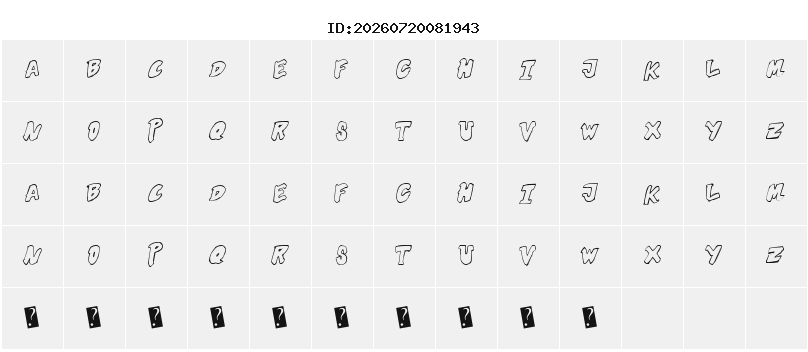
• Font Name: FuturisticOutline
• Designer: Max Infeld
• Manufacturer: Xerographer Fonts
• Description: This font at in Chico,CA Xerographer Studios
About FuturisticOutline.ttf
FuturisticOutline.ttf is a modern, elegant sans-serif font designed for ultimate readability and visual harmony. Perfect for branding, headlines, web design, and print materials.